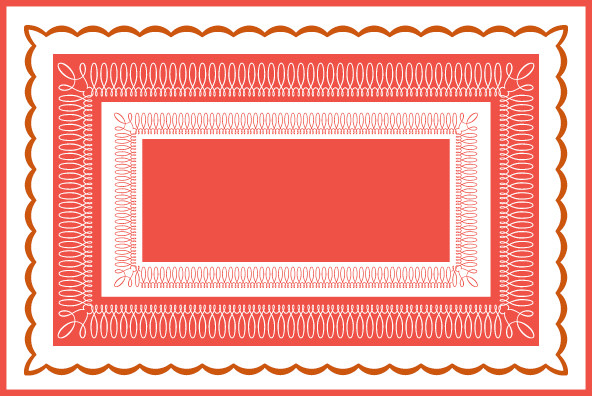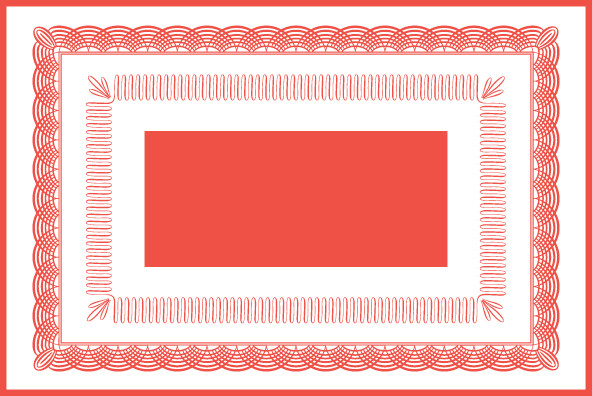
The Certified typeface series was born out of a need to give designers the ability to embellish their designs with high quality certificate borders that could be scaled to any application easily. Designed by Bai Meillon & Stuart Sandler.
Certified Two Certified Two
The Certified typeface series was born out of a need to give designers the ability to embellish their designs with high quality certificate borders that could be scaled to any application easily. Designed by Bai Meillon & Stuart Sandler.